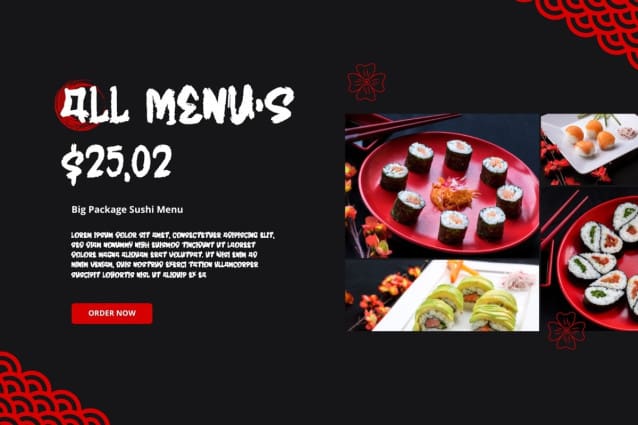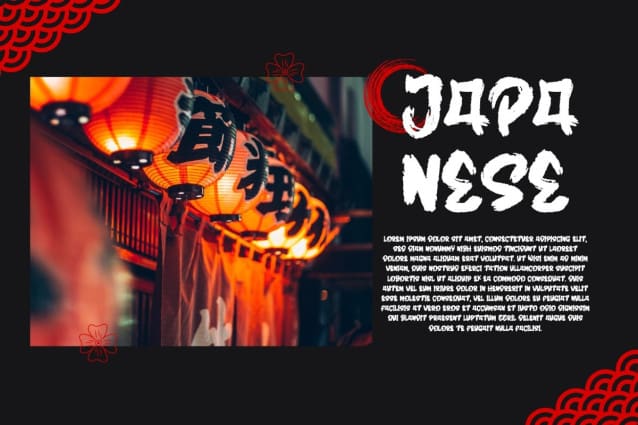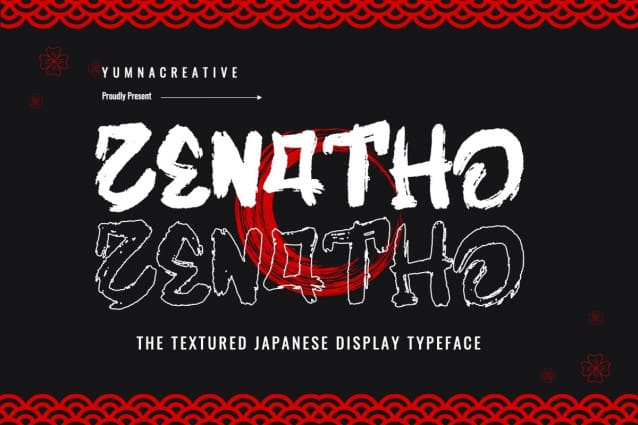
Zenatho Textured Japanese Font
Zenatho Textured Japanese Font is a stylish Japanese Brush Font. It’s like writing with a traditional brush but on your computer! Perfect for adding an artistic touch to your designs.